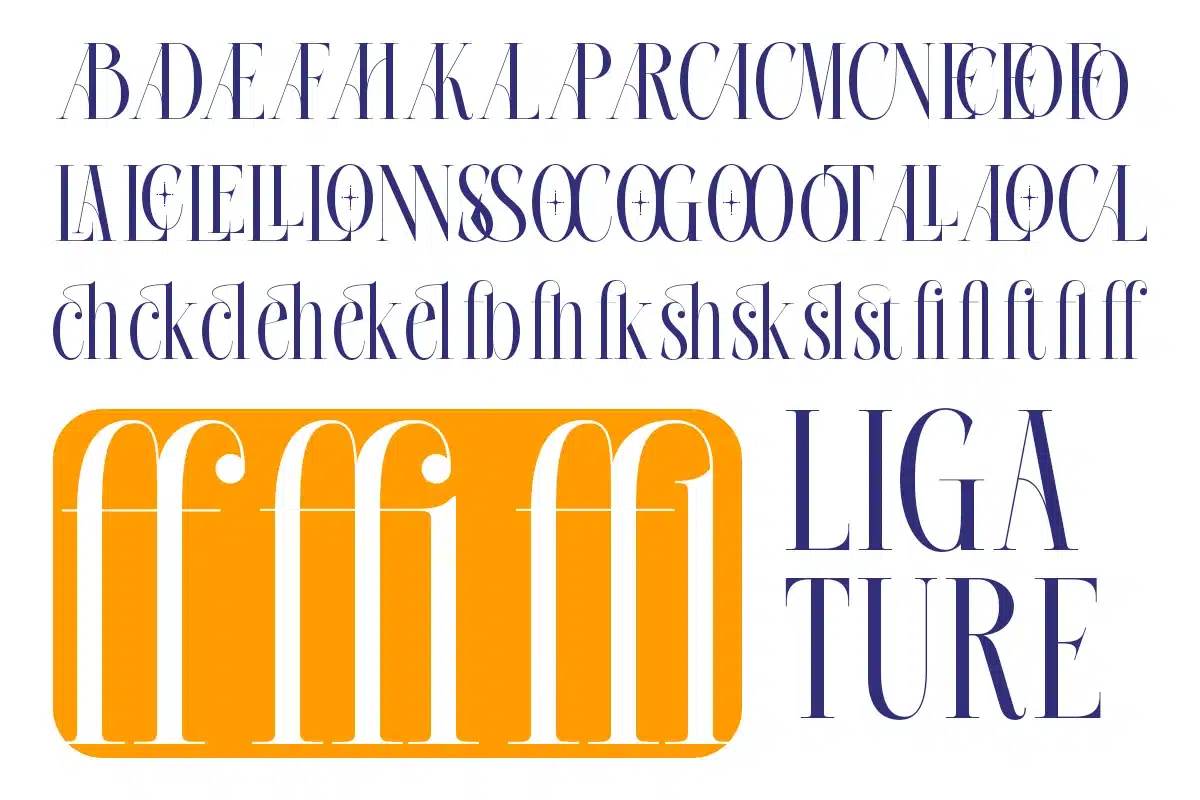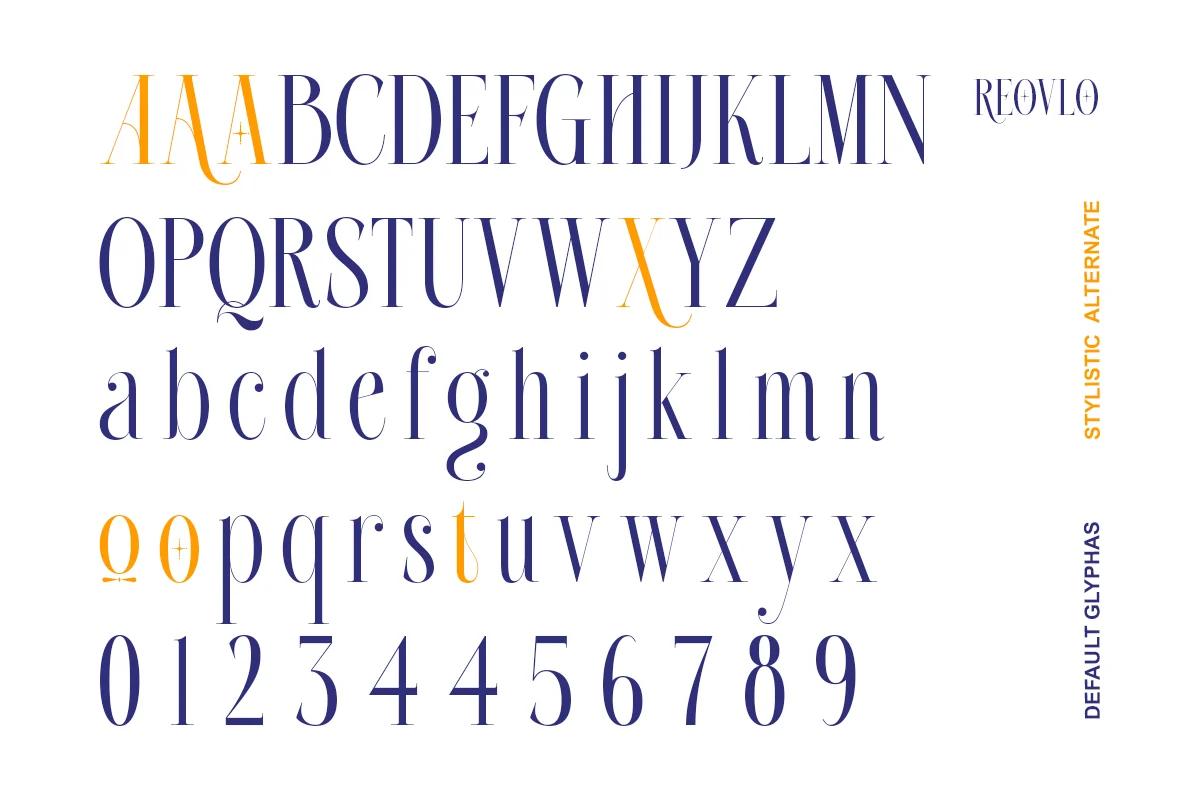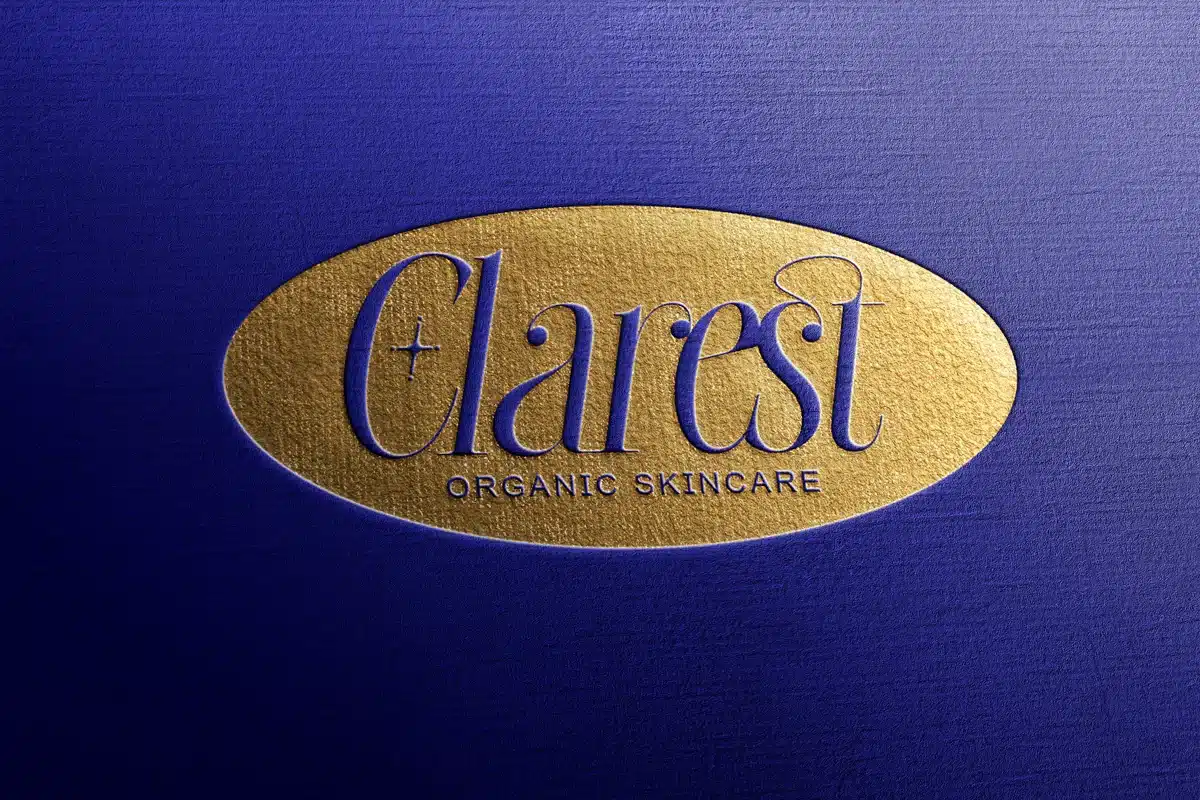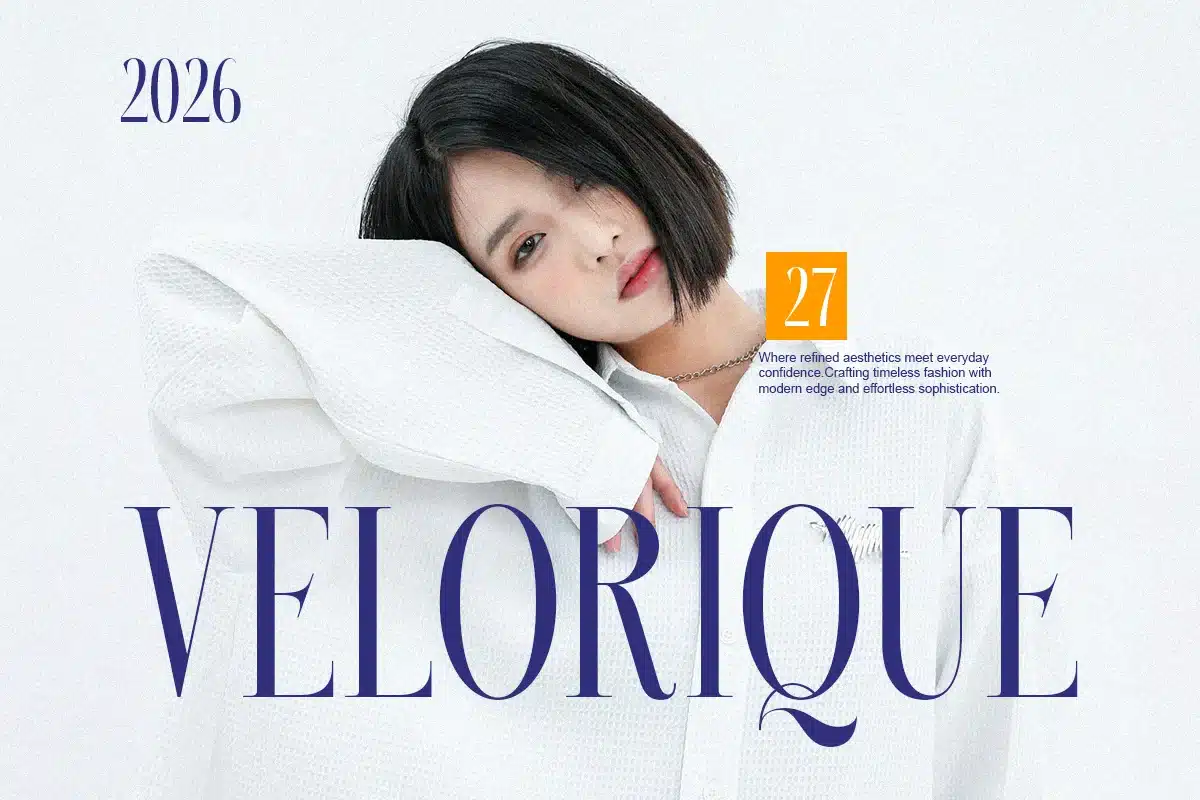
Modern Elegant Display Branding – Roelvo Font
Roelvo is a modern elegant display serif designed for clean luxury branding and refined editorial typography. With balanced proportions, stylish curves, and sophisticated contrast, it creates a premium typographic presence.
Perfect for logos, editorial headlines, fashion branding, and packaging design, Roelvo blends modern minimalism with timeless serif elegance. The typeface delivers clarity, sophistication, and high-end visual identity.
Designed for designers seeking refined modern serif typography.
Features
- Uppercase & lowercase
- Regular & Italic
- Alternates & ligatures
- Clean display serif structure
- Professional kerning